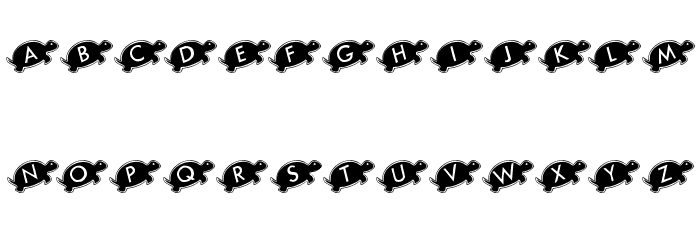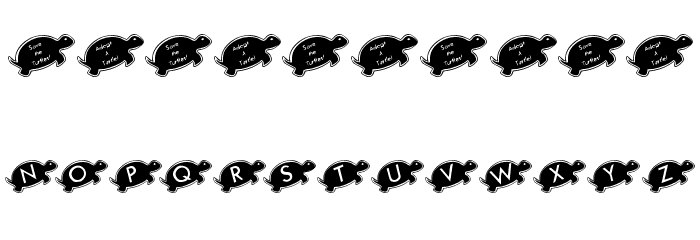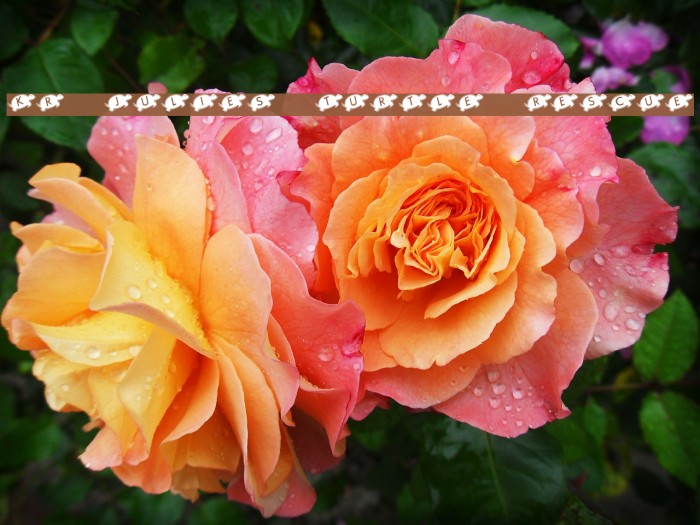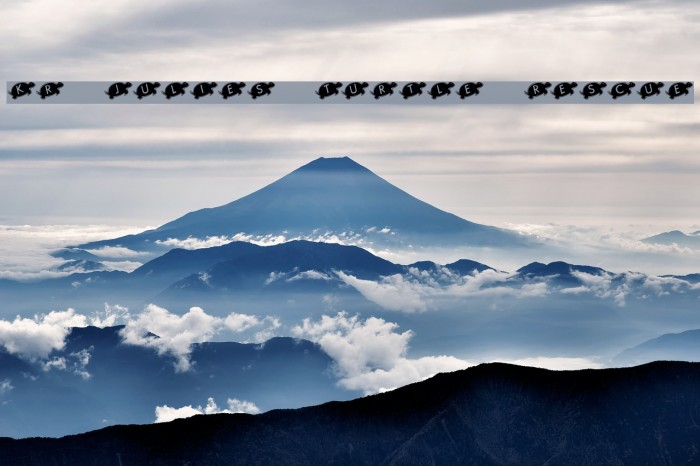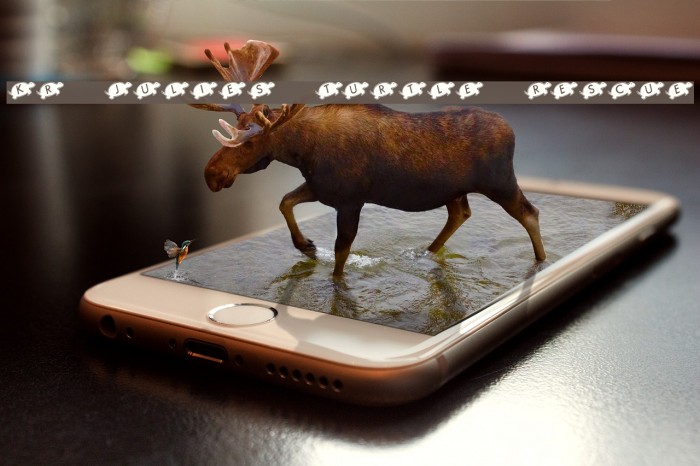
KR Julies Turtle Rescue Font
This playful and whimsical font features each letter encapsulated within a turtle silhouette, creating a unique and engaging visual experience. The letters are bold and clear, making them easily readable despite the decorative turtle design. The font has a fun and lively character, perfect for projects that aim to capture attention and convey a sense of joy and creativity. The combination of the turtle shape with the letters adds a layer of charm and uniqueness, making it suitable for children's projects, environmental themes, or any design that benefits from a touch of nature-inspired whimsy.
A playful font with letters inside turtle silhouettes, perfect for fun and creative projects.
- Proposed Projects: Ideal for children's books, environmental campaigns, educational materials, and playful branding.
- Overall Style: Whimsical